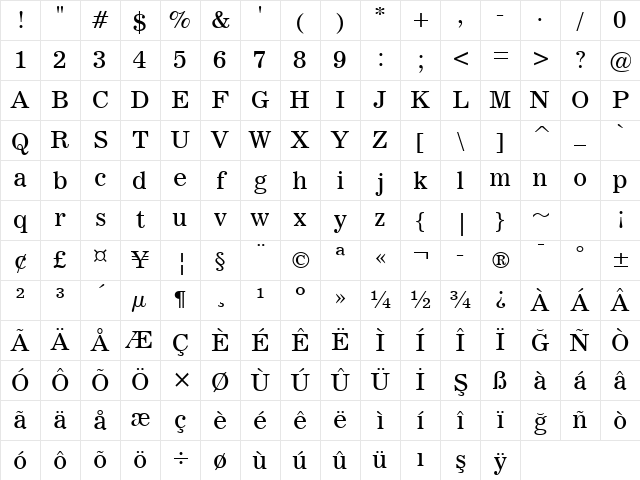
News705 BT Roman
News705 BT Family
Design Context for News705 BT
News705 BT is a composed and adaptable typeface that performs quietly and consistently across a wide range of design contexts.